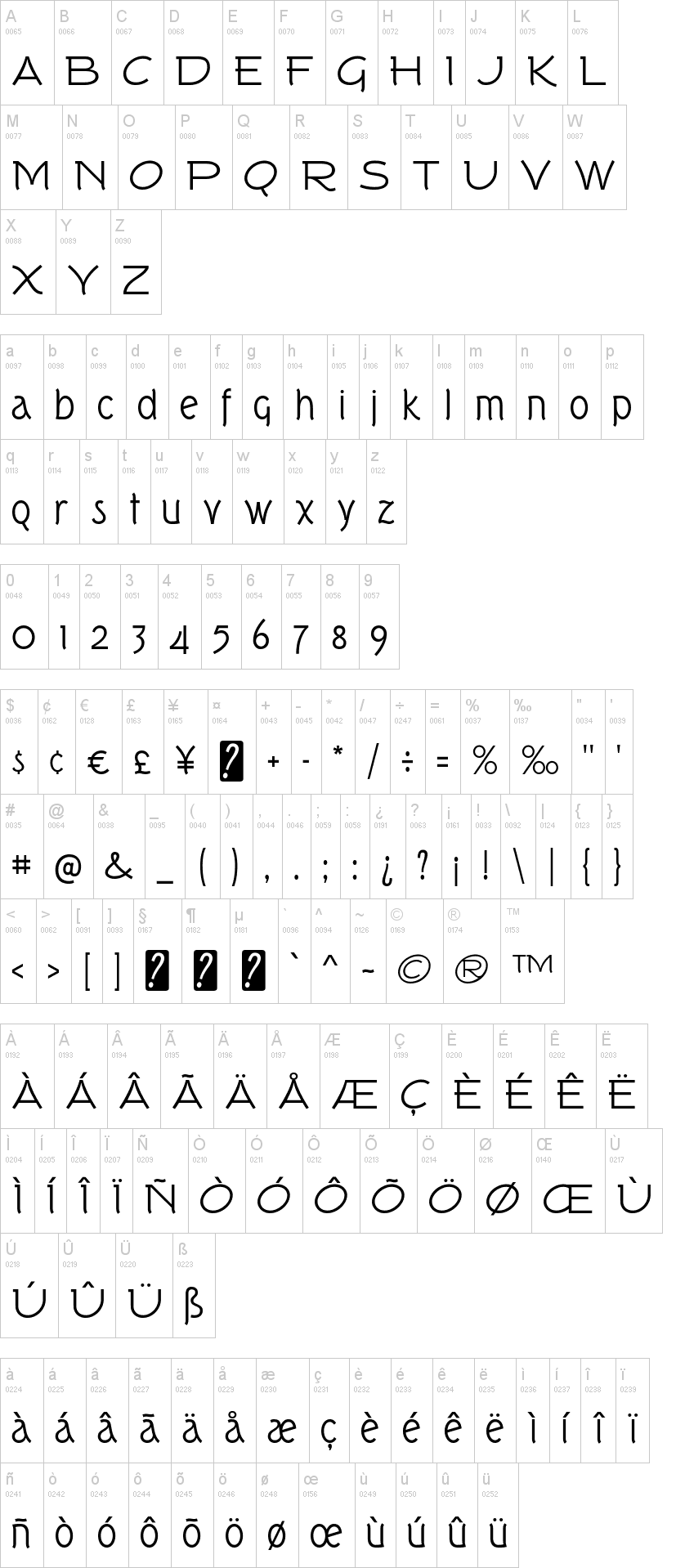
Шрифт Tork
Tork takes the traditional sans serif, rips its sweater and flips it up on its good-for-nothing head, leaving it to wallow in a puddle of it own brokenhearted misery and despair. Don't forget to read the files inside the zip for details.